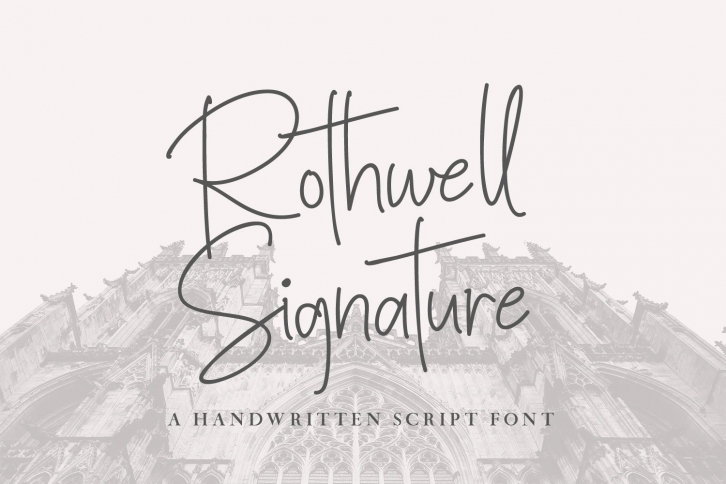
Rothwell Signature is a great font that was designed by xdCreative. Imagine the amount of combinations you can create using this font! The archive is 17.82 MB and it was released on April 7, 2021. Rothwell Signature looks beautiful on wedding invitations, greeting cards, logos, posters, labels, t-shirt designs, logos, business cards and is perfect for use in ink or watercolor works, fashion, magazines, packaging and food menus, children's books and more!